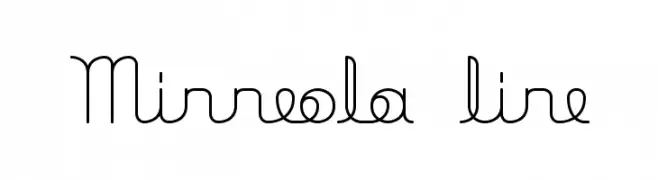
( Ben Grib - www.essieletterpress.co.za )
A modern, continuous line font with elegant, artistic curves.
( JBFoundry - Jean Boyault - jean.boyault.pagesperso-orange.fr/ )
A modern, continuous line font with a fluid and artistic style.
( Ms. DeVine - www.brushstock.com )
A playful, heart-themed decorative dingbat set.
( Press Gang Studios - Andeh Pinkard - comicfontsby.tehandeh.com )
A bold, jagged font with a shattered, chaotic design.
( Ryan Tempro )
A fragmented, modern font with disjointed character segments for a unique visual effect.
( Southype - Rodrigo Gonzalez - www.southype.com )
A playful decorative font made entirely of diverse heart icons.
( Woodcutter - woodcutter Manero - www.woodcutter.es )
A bold, fragmented font with a dynamic and edgy appearance.
( imagex - www.imagex-fonts.com )
A bold, fragmented font with a shattered glass effect, perfect for modern and edgy designs.
( imagex - www.imagex-fonts.com )
A bold, distressed font with a cracked, shadowed appearance.
( !Exclamachine Type Foundry - exclamachine.com/ )
An abstract, fragmented font with a chaotic and distressed style.